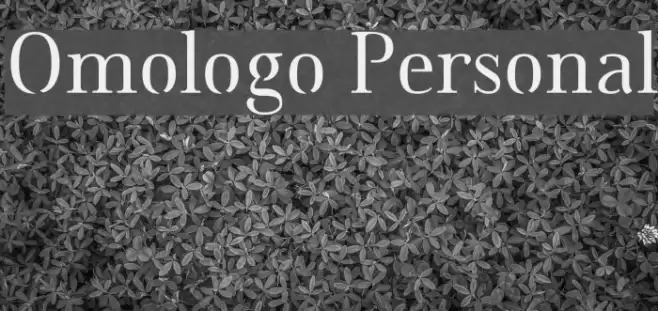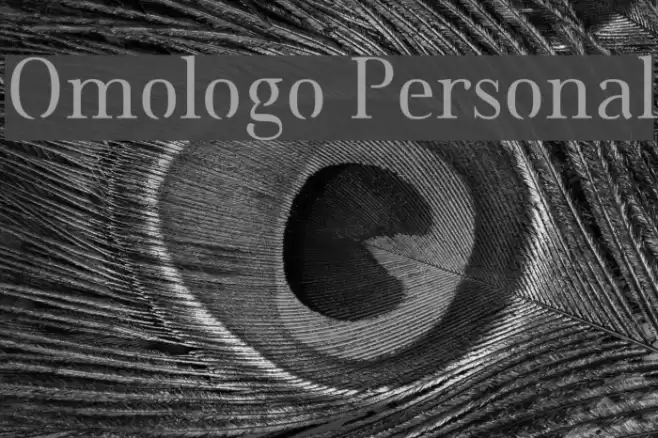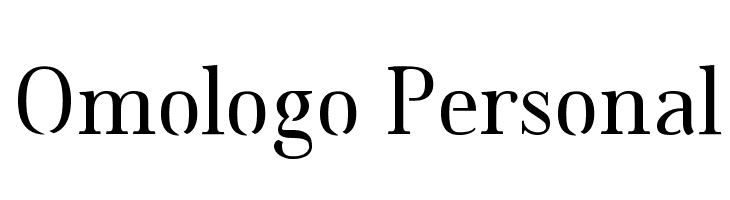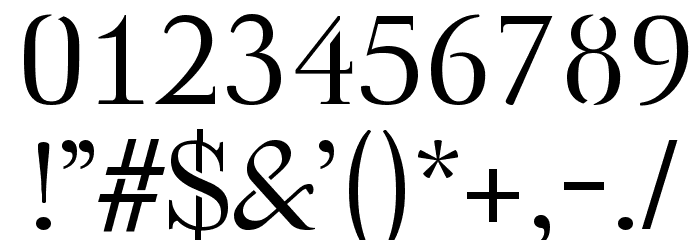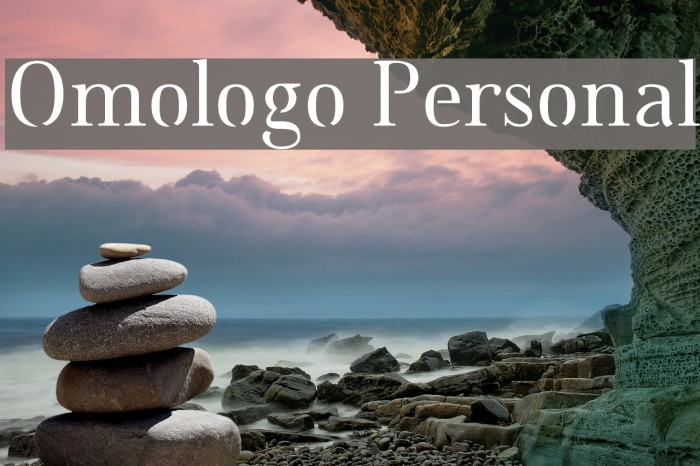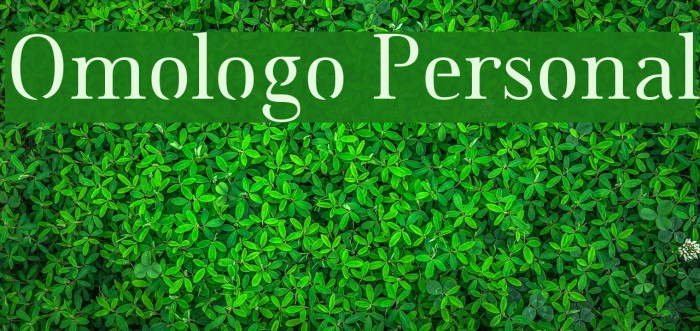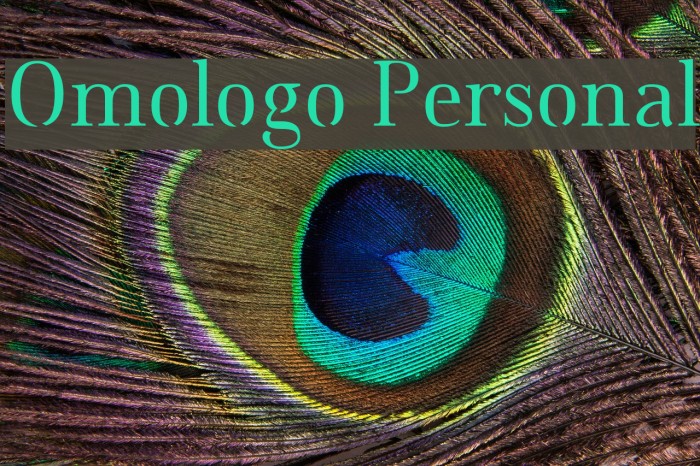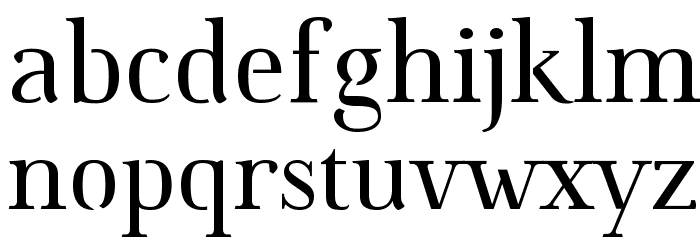
Omologo Personal Font
Omologo Personal Description
This font features a classic serif design with elegant and refined strokes. The uppercase letters are tall and stately, while the lowercase letters maintain a balanced and harmonious appearance. The numerals are clear and distinct, making them easy to read. Special characters are crafted with precision, adding to the font's versatility. The overall design exudes a timeless quality, suitable for both traditional and modern applications. The serifs are pronounced, contributing to the font's readability and aesthetic appeal.
A classic serif font with elegant strokes and a timeless design from Uncategorized fonts.
- Proposed Projects: Ideal for editorial design, book covers, formal invitations, and branding projects that require a touch of sophistication.
- Overall Style: Classic